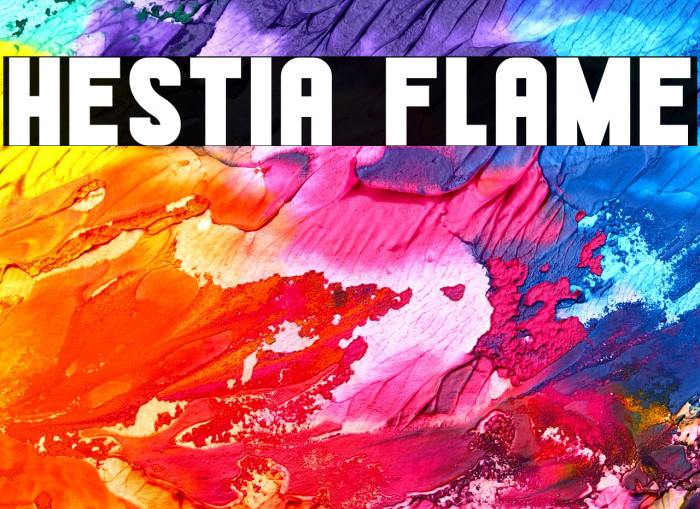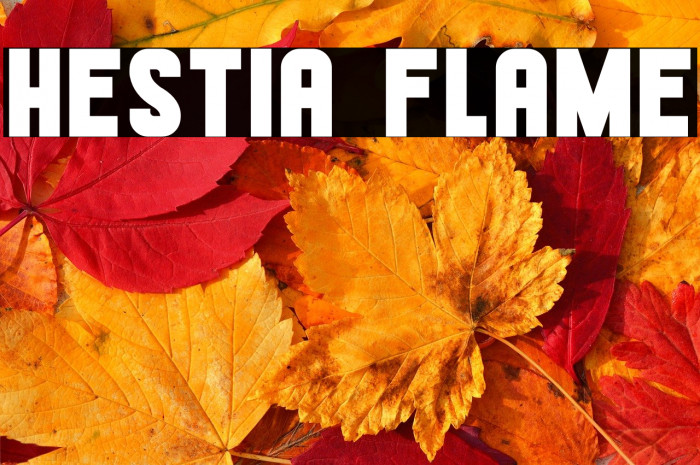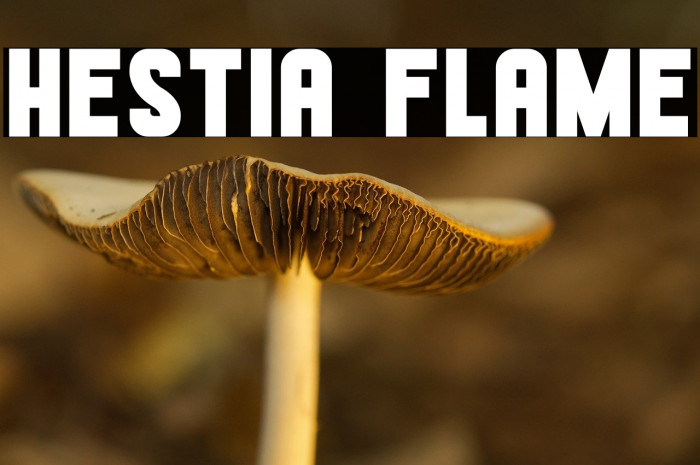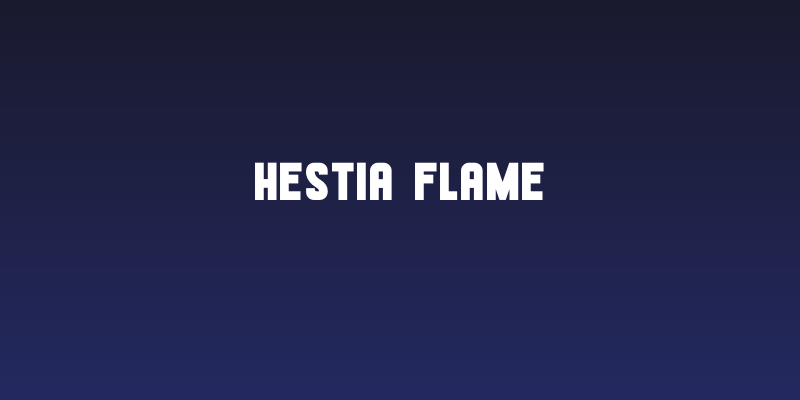
Hestia Flame Font
Hestia Flame Description
This font features a bold and impactful design with strong geometric shapes and a commanding presence. The uppercase letters are uniform in height, with a consistent stroke width that gives them a solid and robust appearance. The lowercase letters maintain the same boldness, ensuring readability and consistency across different text sizes. The numerals are equally bold, with a slightly condensed form that complements the overall style. Special characters are designed to match the boldness of the letters and numbers, making them suitable for various design applications. The font's strong and assertive style makes it ideal for headlines, posters, and any project that requires a powerful visual impact.
| Proposed Projects | Ideal for headlines, posters, branding, and any design requiring a strong visual impact. |